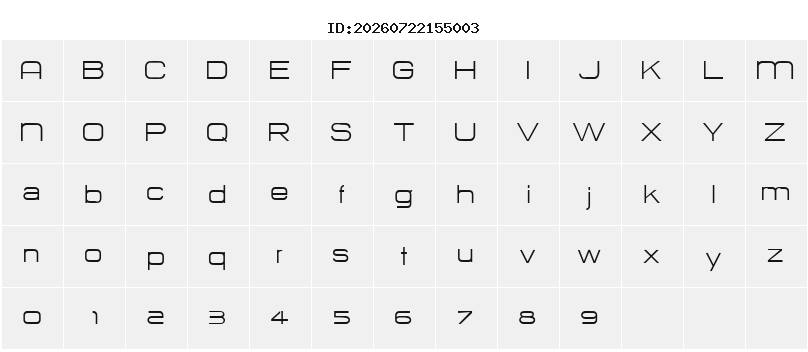
HURTMOLD_ Preview
• Font Name: HURTMOLD_
• Font ID: Macromedia Fontographer 4.1 HURTMOLD_
• Full Font Name: HURTMOLD_
• Version: Macromedia Fontographer 4.1 25/8/2007
• PostScript Name: HURTMOLD
• Character Count: 149
About HURTMOLD_.ttf
HURTMOLD_.ttf is a modern, elegant sans-serif font designed for ultimate readability and visual harmony. Perfect for branding, headlines, web design, and print materials.